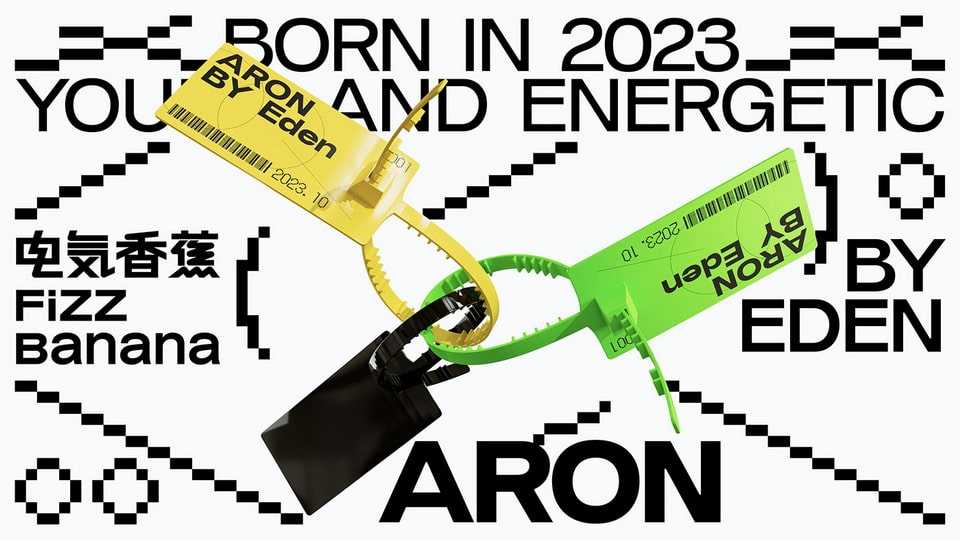
Download Aron font, a modern sans serif typeface that seamlessly combines timeless elegance with contemporary design. Aron typeface is custom-made for projects that demand clarity, legibility, and a touch of sophisticated minimalism.
Designer: 电气香蕉 FizzBanana